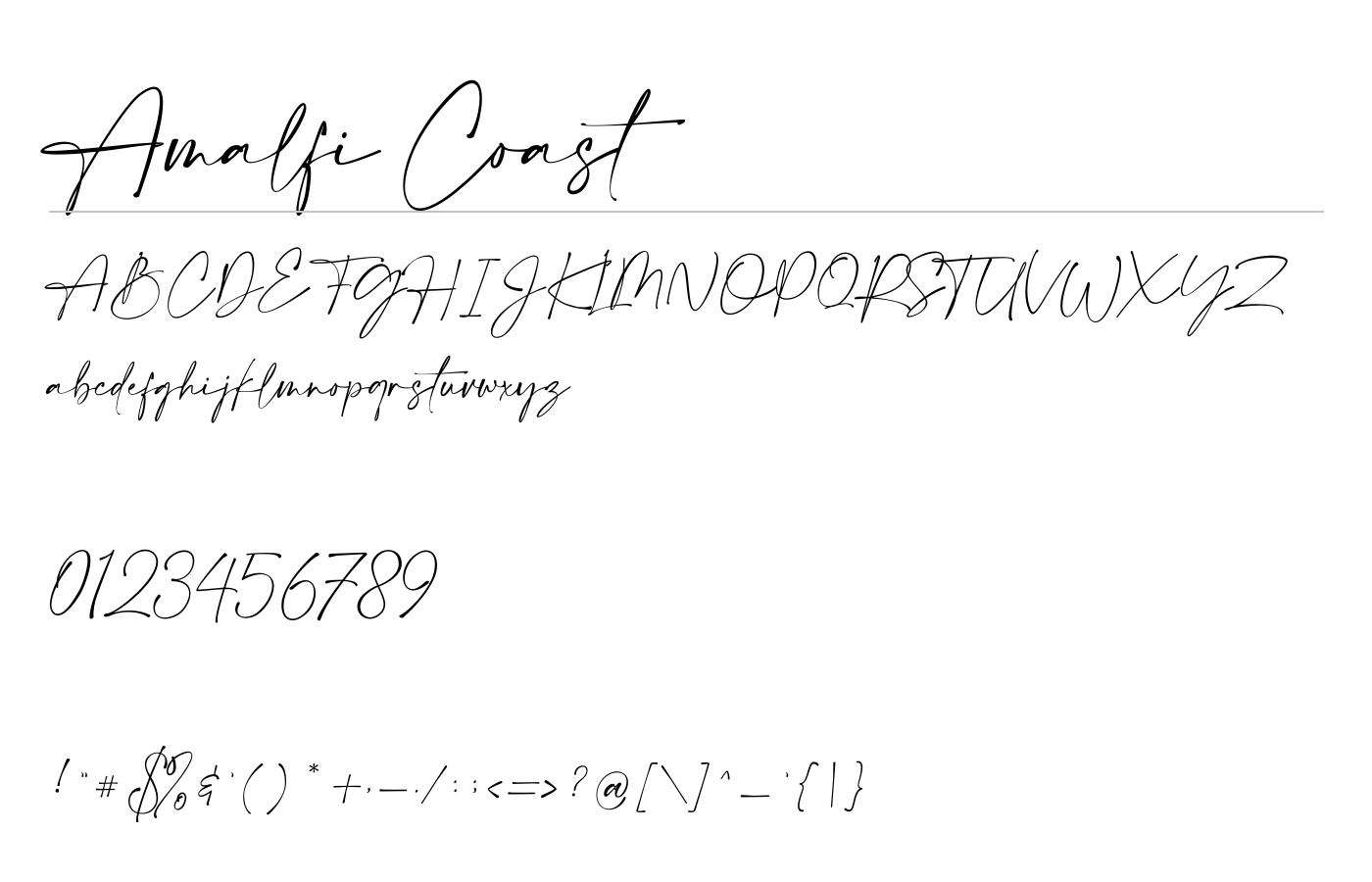
Amalfi Coast is a delicate, elegant script font with a light, airy feel created by its thin strokes and tall, slender letterforms. Its handwritten style conveys a sense of sophistication and romance, making it ideal for fashion, luxury branding, invitations, and feminine editorial projects. This font works best in large sizes where its graceful details and fluid connections can shine, adding a personal and refined touch to any design.
Amalfi Coast Font
About Amalfi Coast Font